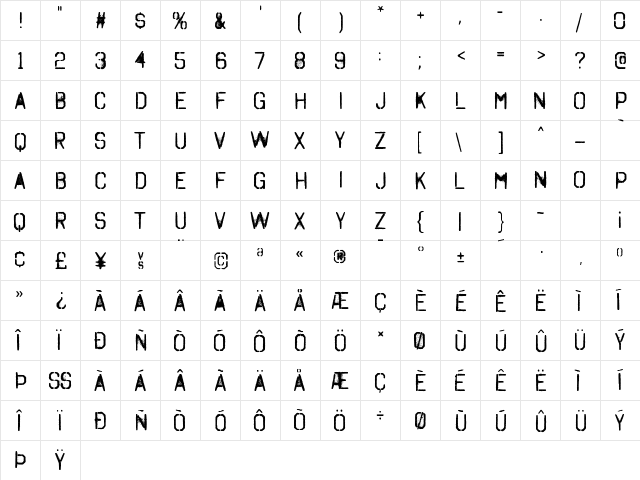
Octin Spraypaint A Regular
Design Context for Octin Spraypaint Typeface
Octin Spraypaint is a composed and adaptable typeface that performs quietly and consistently across a wide range of design contexts.
Pro Tip: Use Octin Spraypaint in both headline and body roles to test its range before committing to a single application.